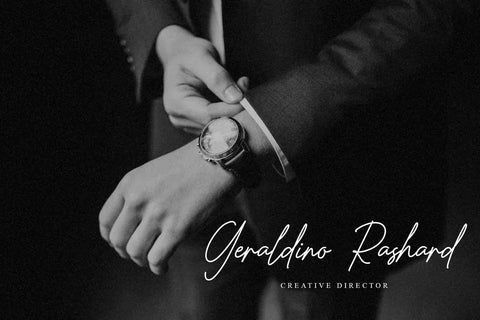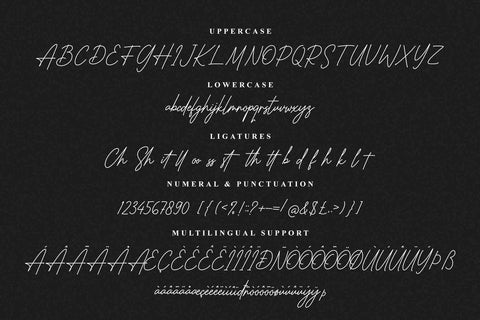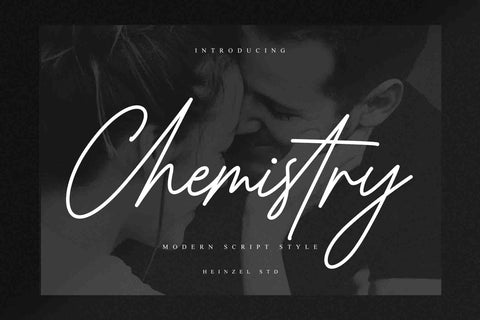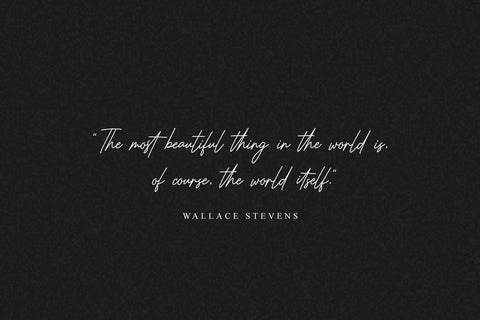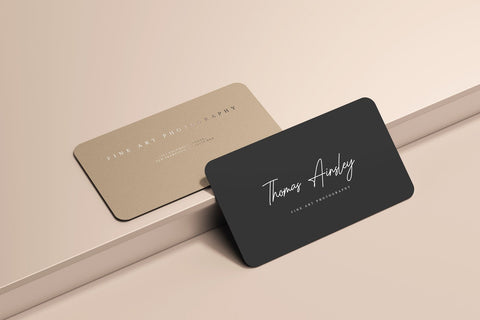
Chemistry Signature Font
Chemistry is a signature font, described by an elegant touch, perfect for your favorite projects. It looks stunning on wedding invitations, thank you cards, quotes, greeting cards, logos, business cards, and every other design which needs a handwritten touch. Fall in love with its incredibly distinct and timeless style and use it to create spectacular designs!
Chemistry Features :
- Uppercase, Lowercase, Numeral and Punctuation
- Ligatures and Alternates